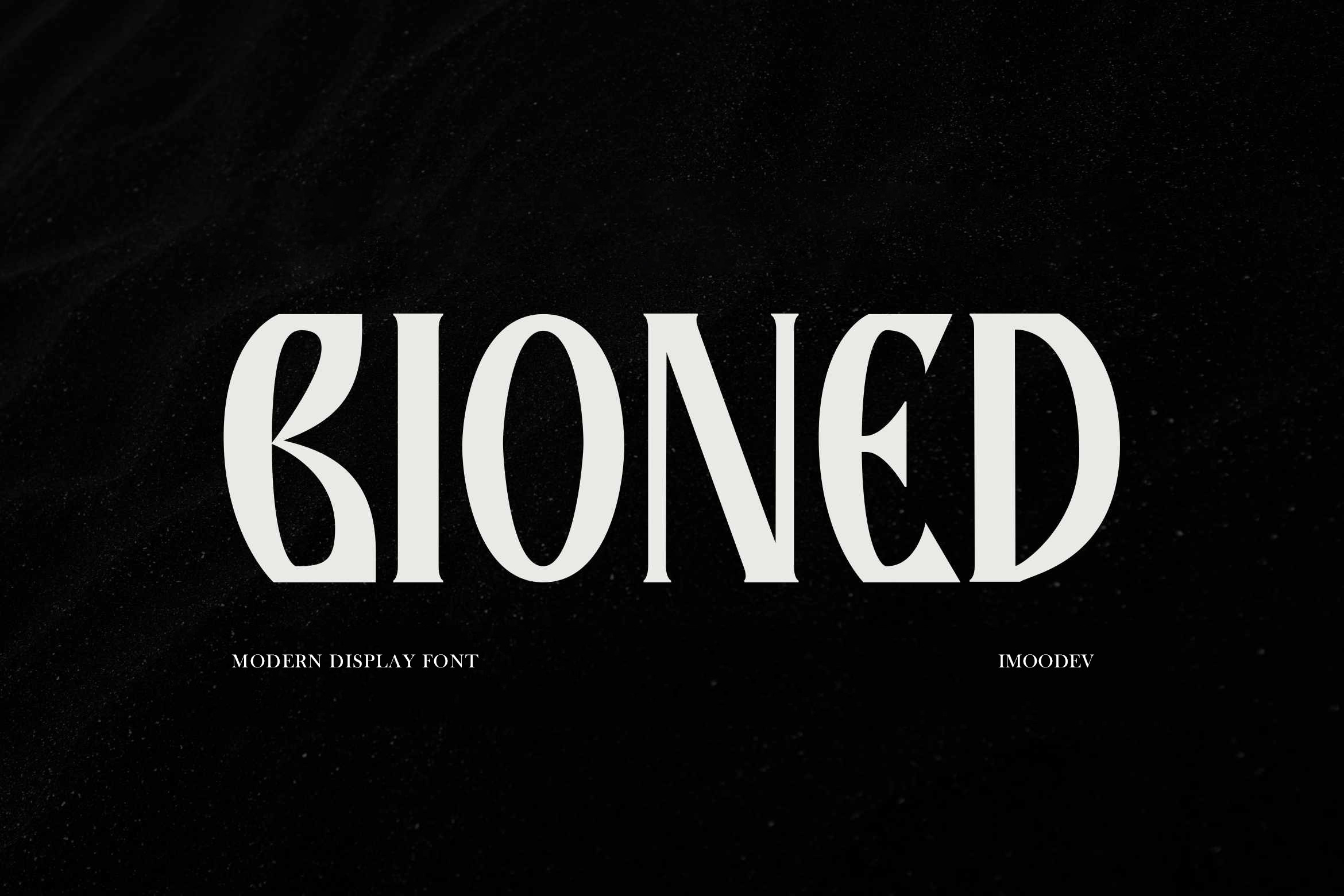
Bioned - Elegant Gothic Serif Font
Bioned is an elegant gothic serif font designed for bold titles and luxurious branding. Each letter forms a wedge serif, with sharp curves and knife like tapered ends, allowing you to shift the mood from elegant to bold.
Its design plays with geometric precision and artistic curves, giving each character a luxurious yet contemporary feel. Perfect for fashion branding, magazine covers, luxury packaging, posters, event invitations, movie titles, and dark editorials. Whether used on large displays or paired with minimalist layouts, this typeface will capture attention and enhance your design.